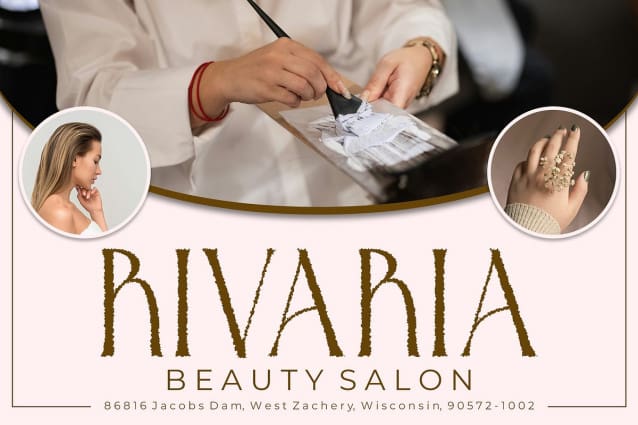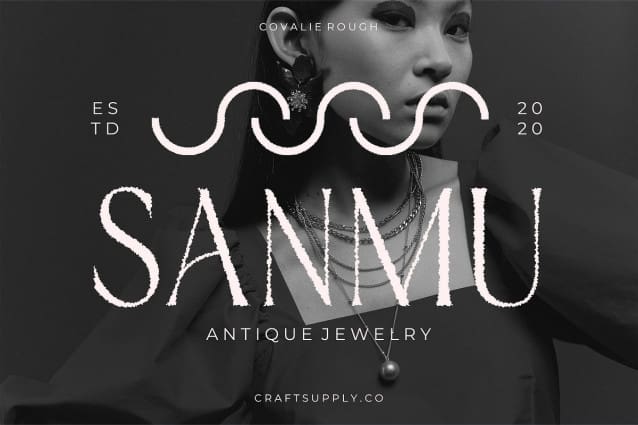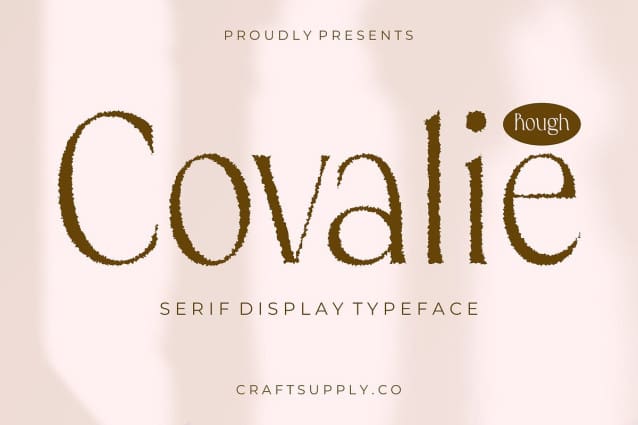
Covalie Rough Font
Covalie Rough Font is a modern serif font that elegantly combines beauty and sophistication with a distinctive rough effect. The sleek serif lines are complemented by a textured touch, creating a unique blend of grace and character.
Textured Depth for Artistic Appeal The rough effect in Covalie Rough adds depth and authenticity, giving the font an artistic and dynamic feel. This design element enhances its visual impact, making it stand out in any application.
Perfect for Elegant and Bold Designs Covalie Rough is ideal for projects that require a balance of elegance and boldness. Its stylish appearance makes it perfect for formal invitations, luxury branding, promotional materials, and editorial design, ensuring your designs captivate with a sophisticated and standout look.
Versatile for Various Design Applications Despite its textured charm, Covalie Rough offers versatility across a range of design projects. Whether you’re crafting high-end branding or creating eye-catching promotional content, this font brings both elegance and unique visual appeal to the table.